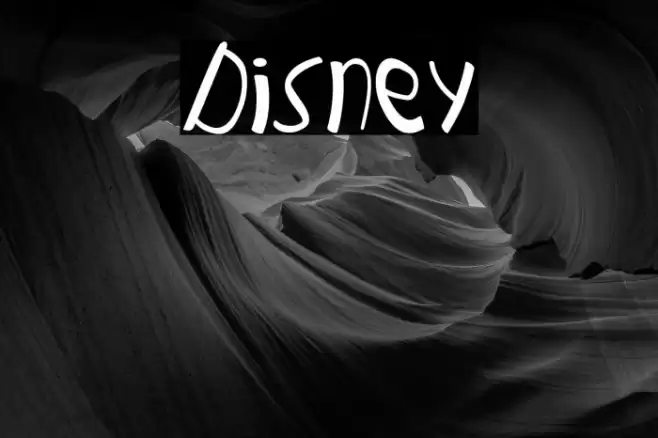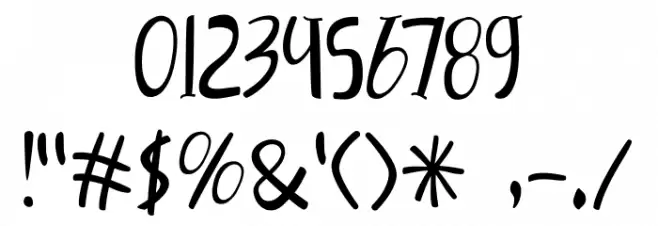
Disney Font
Disney Description
This font features a whimsical and playful style, reminiscent of classic animated film lettering. The characters are fluid and dynamic, with a hand-drawn appearance that adds a sense of movement and energy. Uppercase letters are tall and slightly narrow, while lowercase letters maintain a consistent flow with rounded edges. The numbers are bold and easily distinguishable, complementing the overall aesthetic. Special characters are creatively designed, enhancing the font's unique charm. This font is ideal for projects that aim to capture a sense of fun and nostalgia.
A whimsical, playful font with a hand-drawn, animated style from Cartoon fonts.
- Proposed Projects: Perfect for children's book covers, animated film titles, theme park signage, and playful branding.
- Overall Style: Playful, Whimsical
- Use Case: Headlines, Logos, Branding